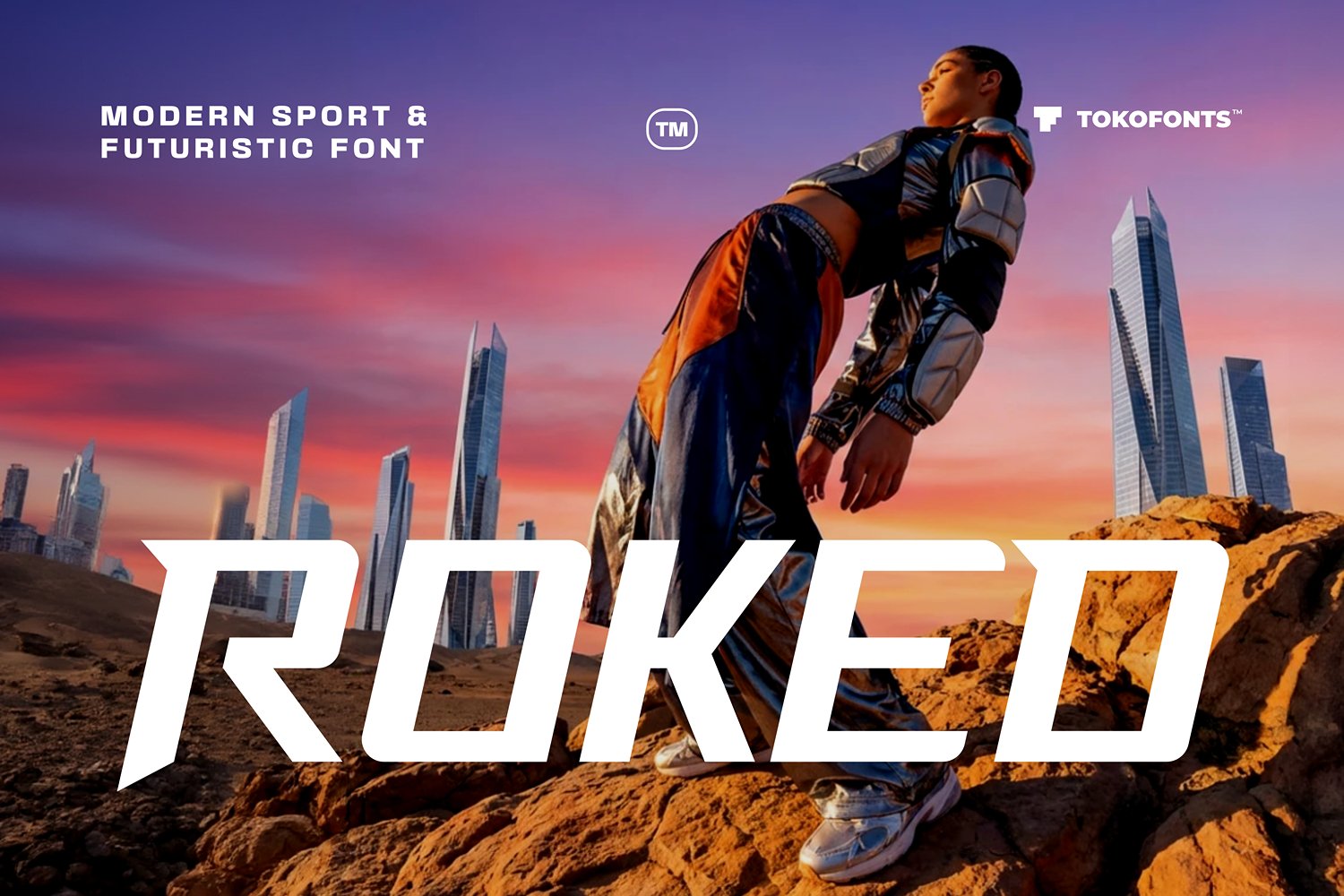
Roked – Sports Techno Font
Roked – Sports Techno Font is a professionally designed typeface that delivers clarity, structure, and consistent performance across various design applications. Roked is a bold and powerful sports display font inspired by the energy and intensity of competitive sport. Its strong letterforms reflect the speed of racing, the power of football, and the dynamic movement found in basketball and baseball. Designed with a sporty and athletic character, Roked brings a sense of action and performance, making it perfect for projects that need a strong and energetic visual impact.
With its bold and athletic style, Roked works well for designs related to gym branding, fitness campaigns, soccer promotions, golf events, and hockey graphics. The font combines sporty attitude with clear readability, making it ideal for sports posters, race-themed visuals, and other athletic design projects that demand a confident and powerful typographic presence.